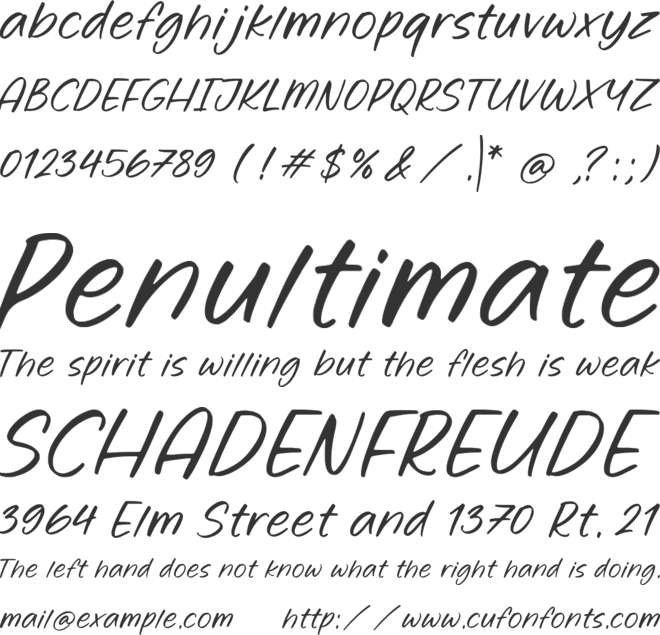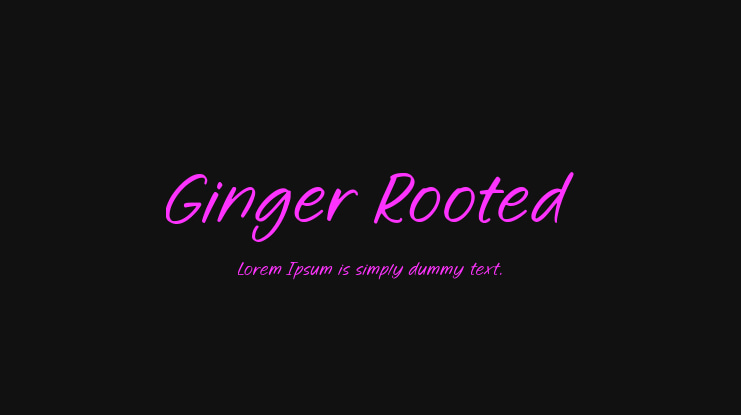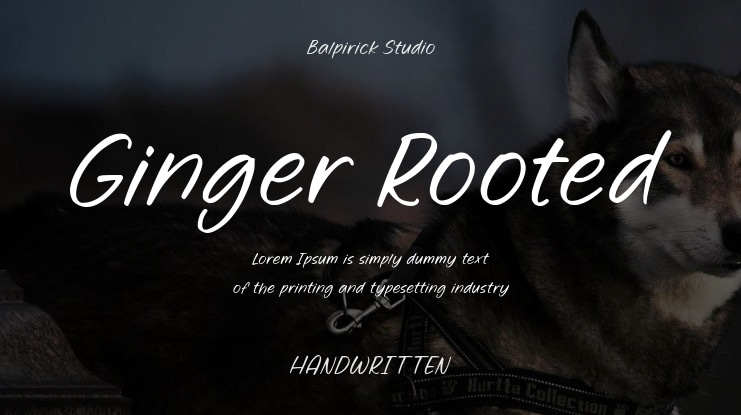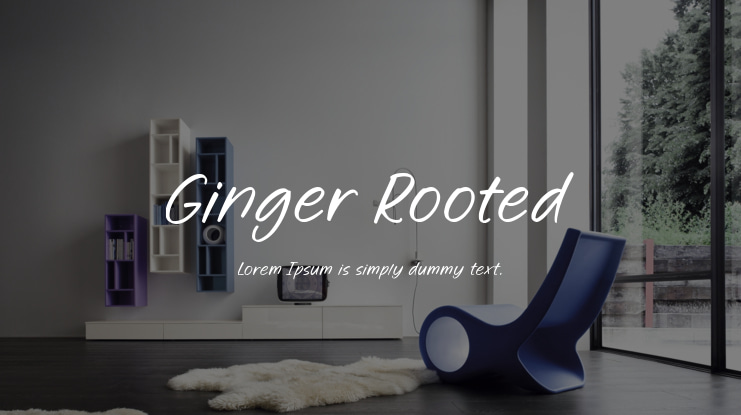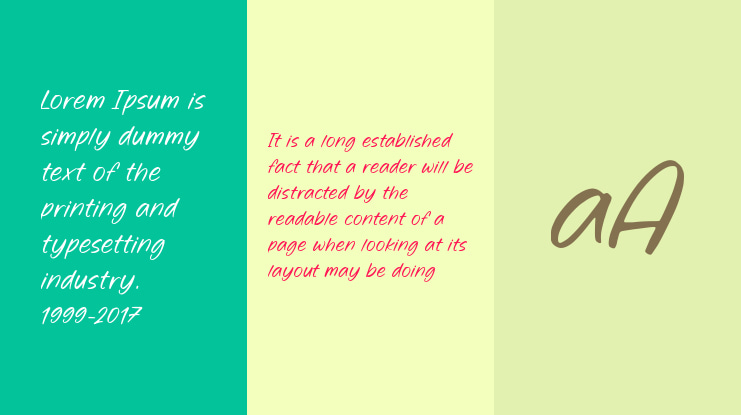
Ginger Rooted Font
Ginger Rooted is a contemporary handbrushed font that offers versatility in various creative applications. Whether you are utilizing it for crafts, digital design, presentations, or crafting greeting cards, this font is guaranteed to become your most beloved go-to choice, irrespective of the occasion!
• Effortless multilingual support for enhanced usability